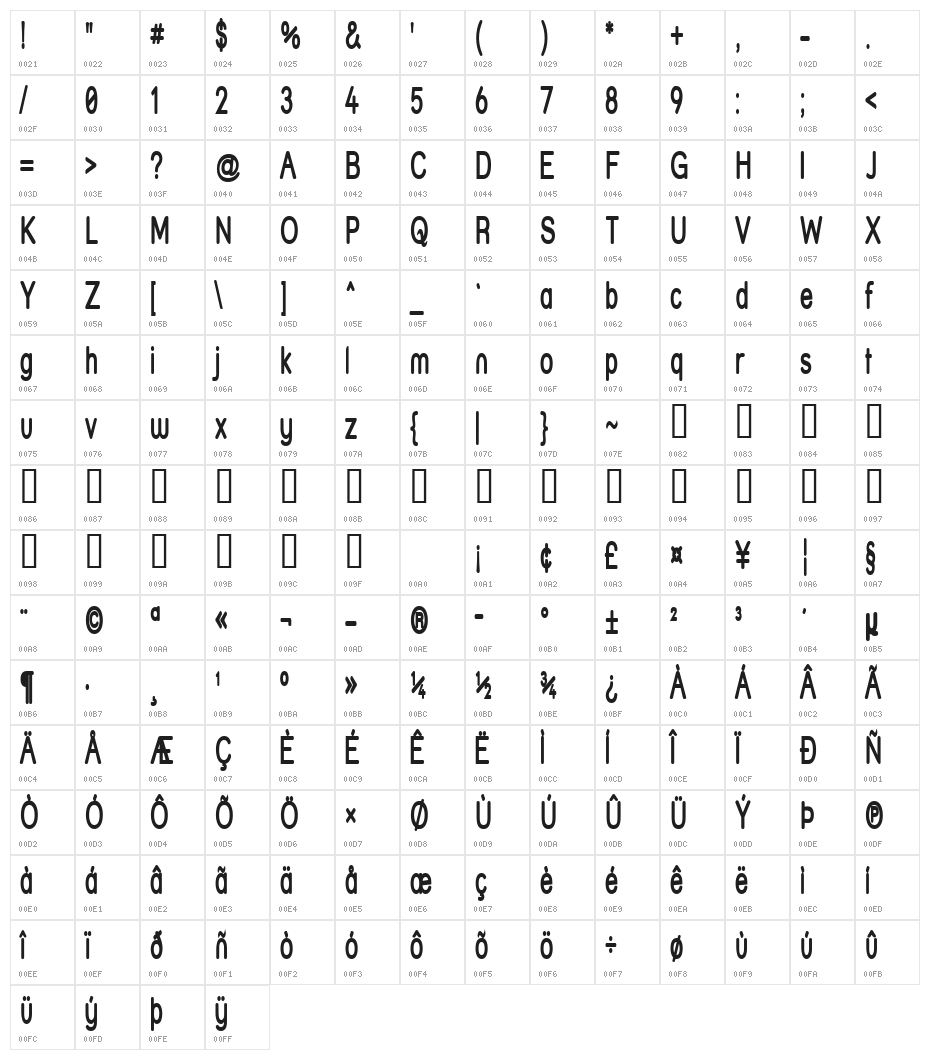
Street Bold Thin Font
Street Bold Thin Description
This font features a bold and rounded sans-serif style, characterized by its thick strokes and smooth curves. The letters are evenly spaced, providing a clean and modern appearance. The uppercase and lowercase letters maintain a consistent width, contributing to a uniform look. The numerals are clear and legible, matching the overall boldness of the alphabet. Special characters are included, maintaining the same rounded and bold aesthetic. This font is versatile, suitable for various design projects requiring a strong and contemporary feel.
| Use Case | Headlines, Logos, Signage |
| Proposed Projects | Ideal for branding, signage, headlines, and digital media where a modern and bold statement is needed. |